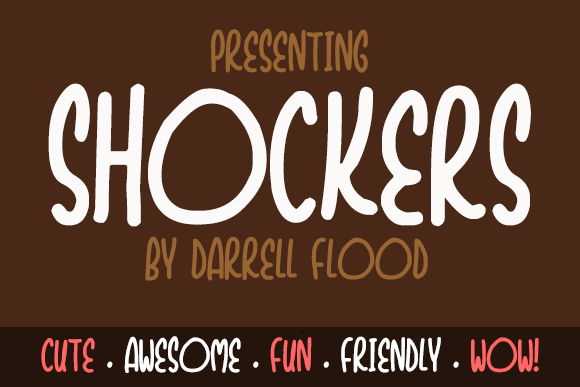
Indulge in the captivating allure of Shockers, a script font that dances across your designs with effortless charm. Its tall, flowy silhouette, reminiscent of a playful felt marker, breathes life into your creations. Shockers is more than just a font; it's a gateway to a world where imagination takes flight.
Embrace your inner child with Shockers. Its unassuming elegance invites you to express your fun-loving side. Let your designs exude a playful spirit, engaging your audience with every stroke. Whether you're crafting whimsical greeting cards, enchanting social media posts, or designing eye-catching logos, Shockers is your perfect companion.
Step into the extraordinary with Shockers. Its meticulously crafted curves and charmingly casual style will transform your designs. Dare to be different, dare to be captivating – Shockers is the key to unlocking your creative potential.